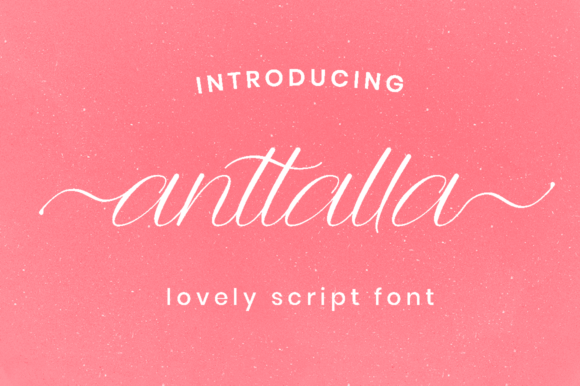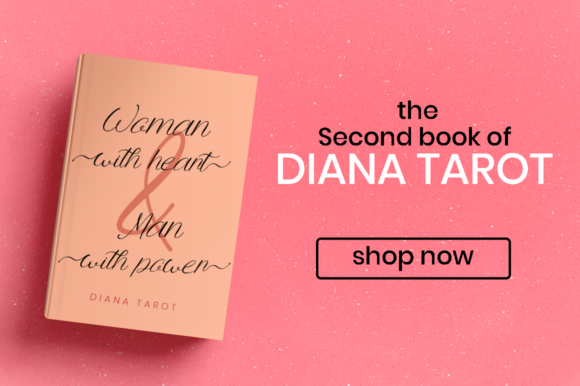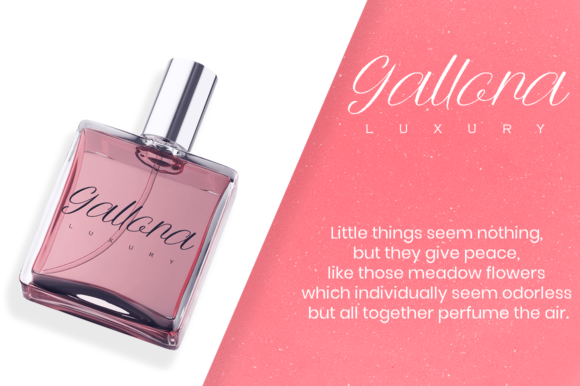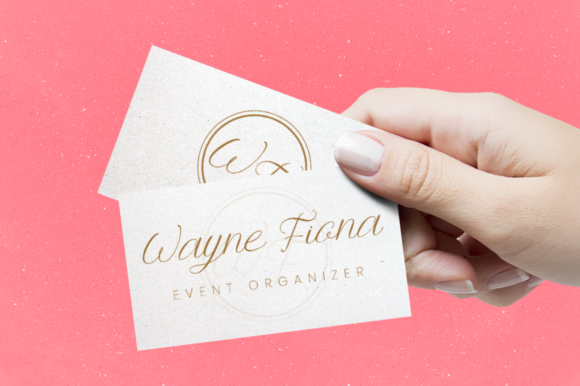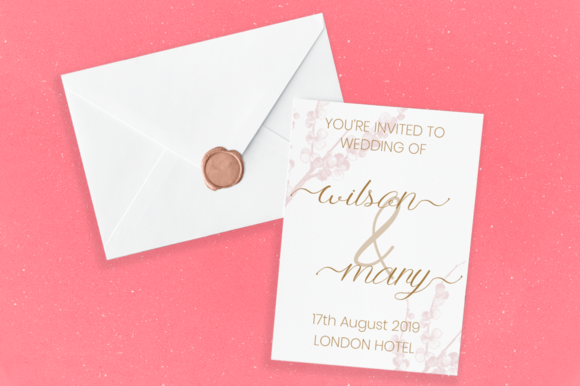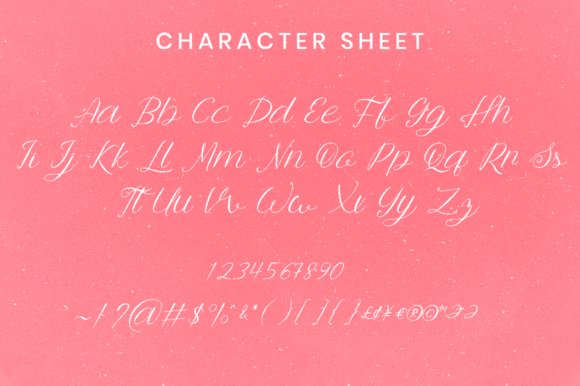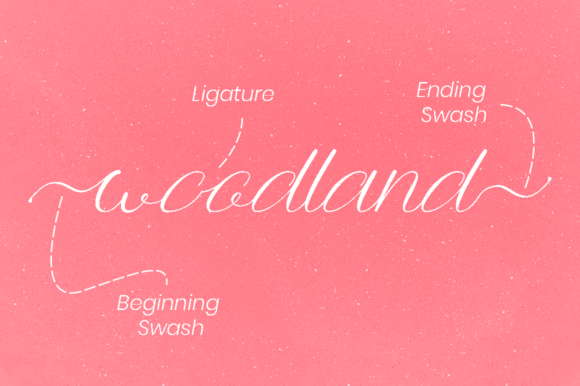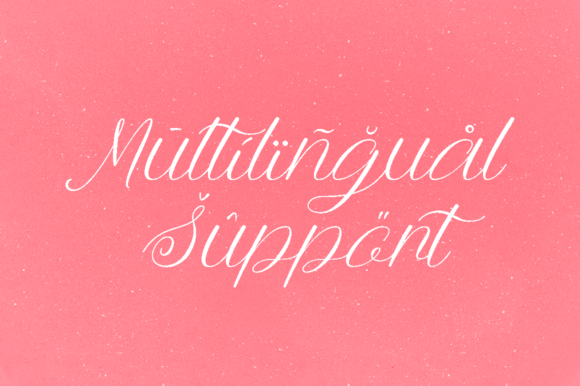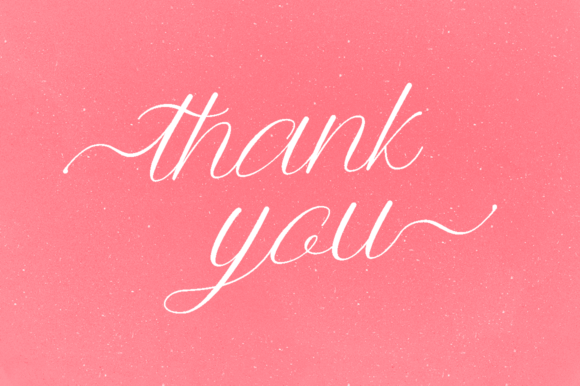
HomeScript FontsAnttalla Font Script Fonts Anttalla Font FacebookXPinterestWhatsApp Anttalla Font Poster 2 Anttalla Font Poster 3 Anttalla Font Poster 4 Anttalla Font Poster 5 Anttalla Font Poster 6 Anttalla Font Poster 7 Anttalla Font Poster 8 Anttalla Font Poster 9 About Anttalla Font Anttalla is a sweet and bold script with a contemporary feel, making it a one-of-a-kind crafting font! DOWNLOAD NOW People also explored Rain in Spring Font Hello Pirates Font Butter Font Christmas Blossom Font Rice Box Font Gatteway Font Texas Professional Font Maria Christmas Font Alfereta 310 0 TagsAnttalla Font Previous articleTown Hill FontNext articleShadow Horror Font LEAVE A REPLY Cancel reply Comment: Please enter your comment! Name:* Please enter your name here Email:* You have entered an incorrect email address! Please enter your email address here Website: Save my name, email, and website in this browser for the next time I comment. Personal Use Free Dear Monita Personal Use Free Read more about this font Baveuse Personal Use Free Read more about this font Brandon Bromley Personal Use Free Read more about this font Eits Personal Use Free Read more about this font BLOG Fonts That Capture the Spirit of New York City New York City is more than just a place—it’s an experience, a rhythm, a visual language... Transform Your Website: Elevate Your Typography with 7 Best Web Font Generators Where to Buy American Fonts Online in 2024 Free Fonts Risk: Why Free Fonts Can Be Dangerous for Designers